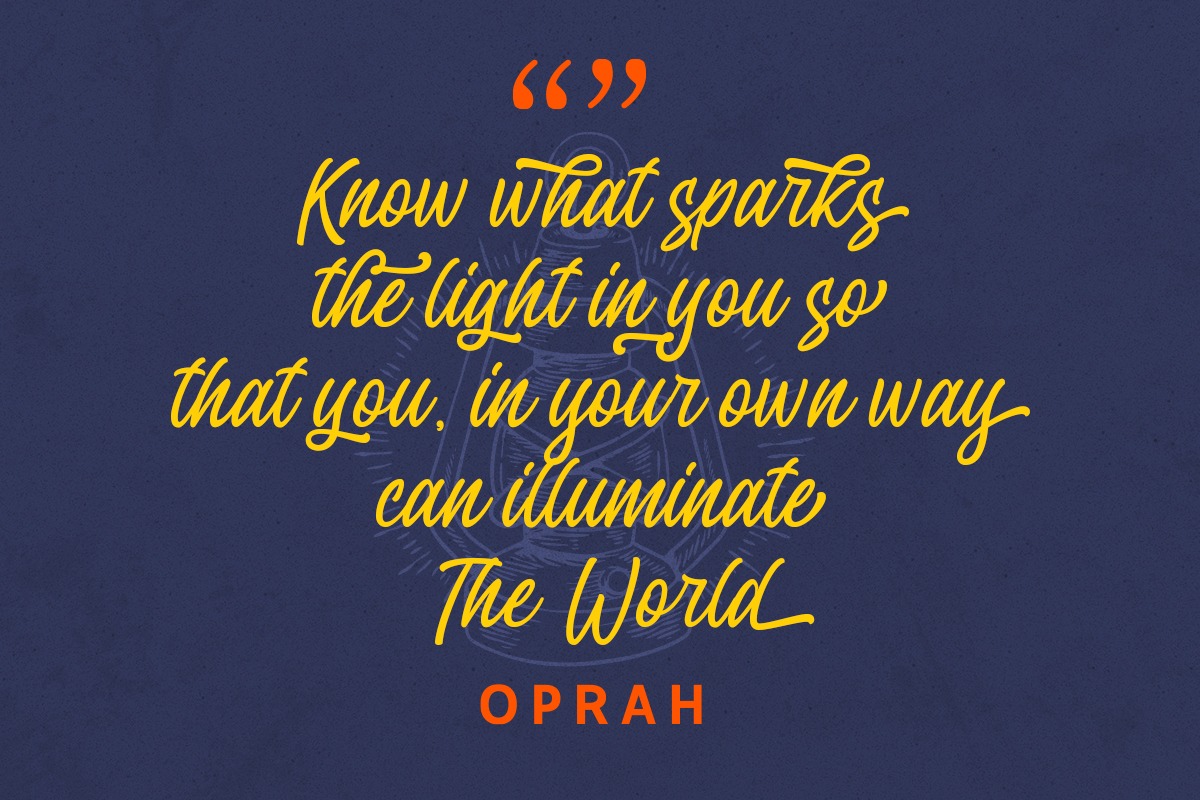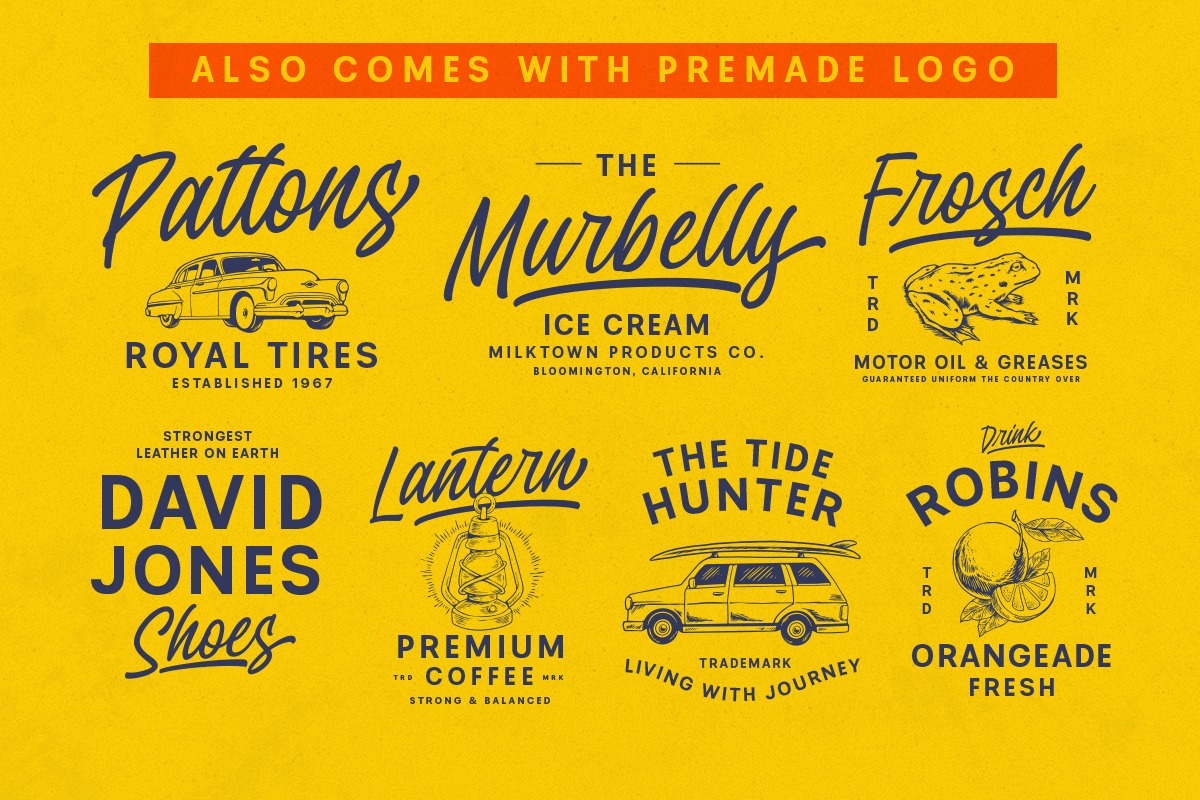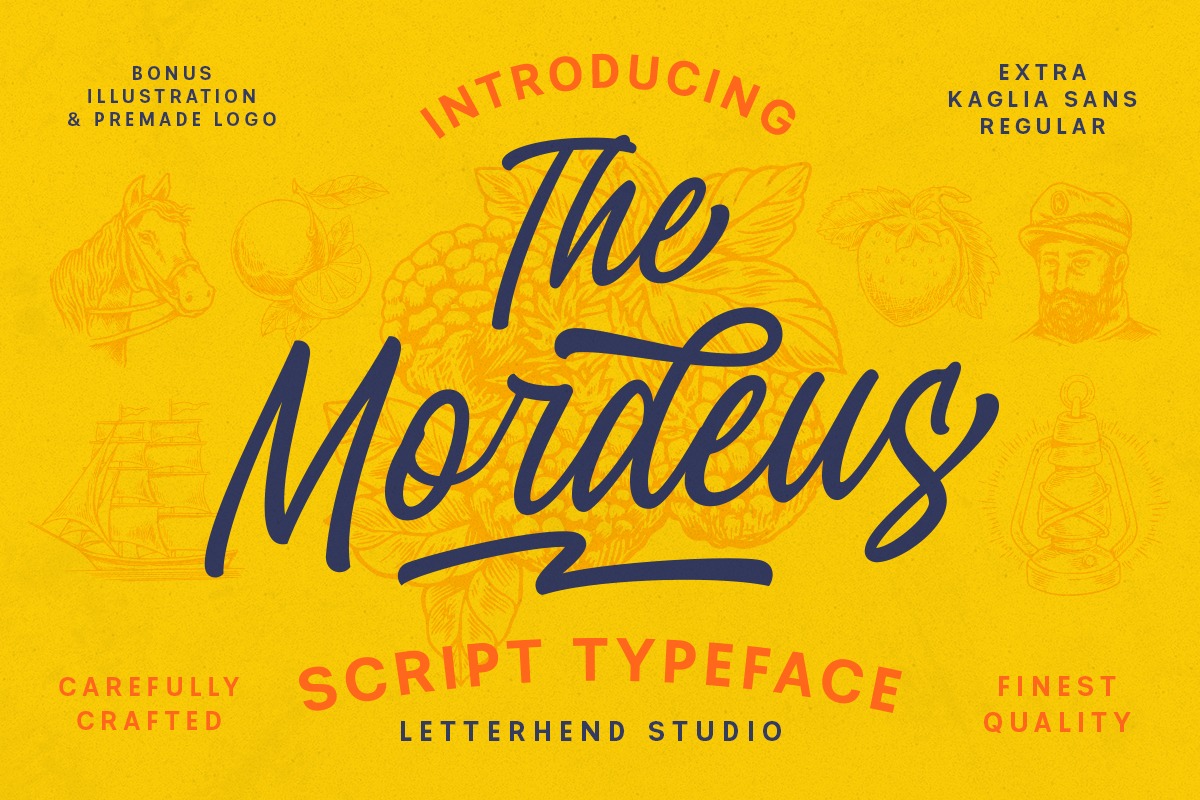
The Mordeus Font
The Mordeus Script Font
This is a classic handwritten font combined with Handwriting style. It’s designed and shared by Letterhend Studio. The swashes makes this font looks great for retro lettering which you can create in a sec! Also comes with illustration and premade logo as bonus. This type of font perfectly made to be applied especially in logo, headline, signage and the other various formal forms such as invitations, labels, logos, magazines, books, greeting / wedding cards, packaging, fashion, make up, stationery, novels, labels or any type of advertising purpose.